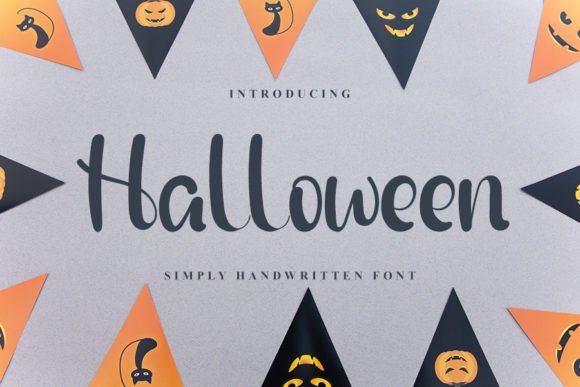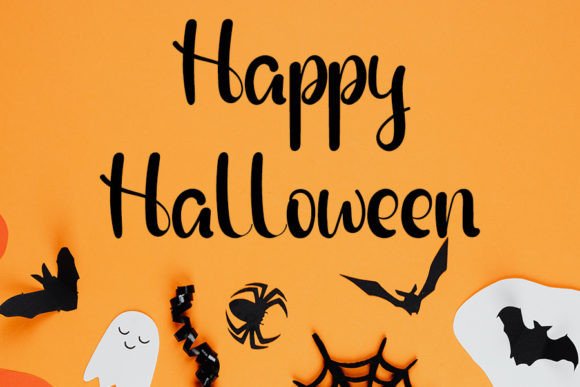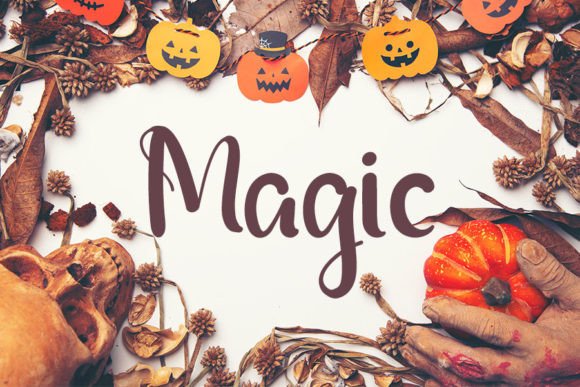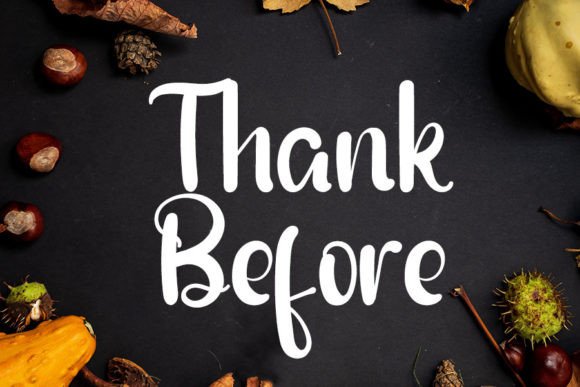
Halloween Font
About Halloween Font
**Halloween: A Neat and Beautiful Handwritten Font with an Elegant Touch**
**Halloween** is a neat and beautiful handwritten font that adds an elegant touch to your favorite projects. This font is characterized by its distinctive and timeless style, making it perfect for creating spectacular designs that stand out.
**Halloween** stands out with its carefully crafted handwritten letterforms, exuding a sense of sophistication and beauty. The font’s neat and elegant appearance makes it a versatile choice for a wide range of creative endeavors.
This font’s versatility ensures it can enhance various design applications. Whether you’re working on branding, invitations, social media graphics, or any other creative project, **Halloween** adds a touch of elegance and distinctiveness to your work.
In branding and logos, this font ensures your visual identity conveys sophistication and uniqueness, leaving a lasting impression.
For invitations and special events, **Halloween** brings an elegant and timeless charm to your designs, setting the right tone.
In conclusion, **Halloween** is more than just a font; it’s a design asset that brings a sense of elegance and timelessness to your creative projects. Whether you’re designing for special occasions, personal expression, or various other contexts, choose **Halloween** to infuse your work with its unique and elegant character. Embrace its neat and beautiful design, and let your creativity shine with sophistication and style.